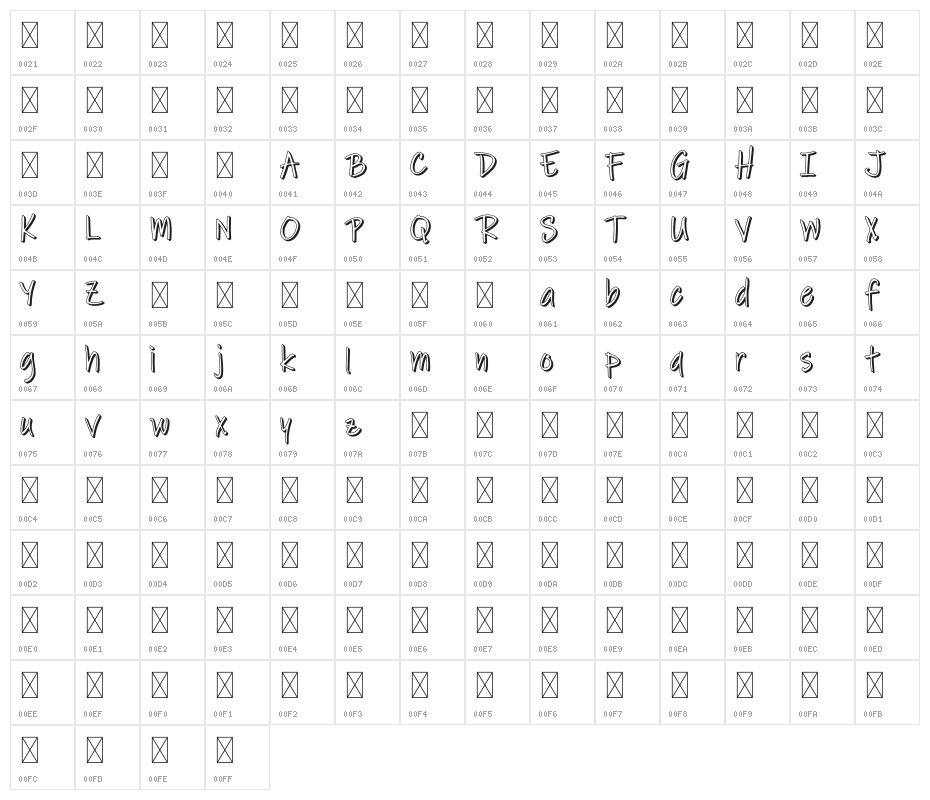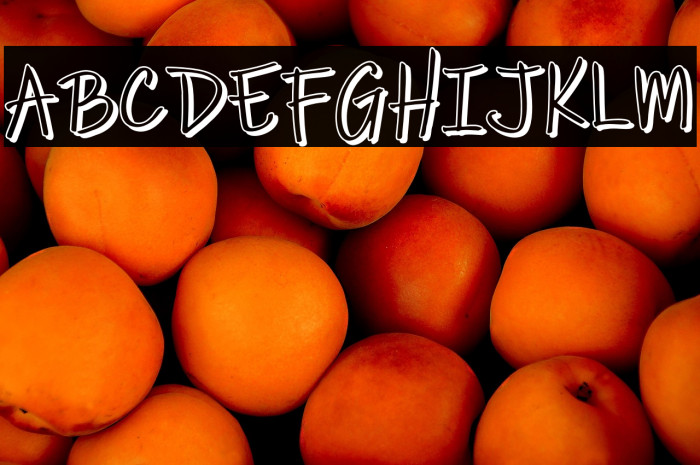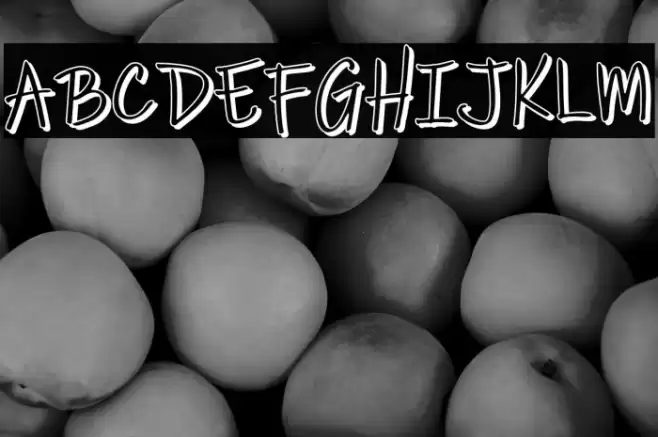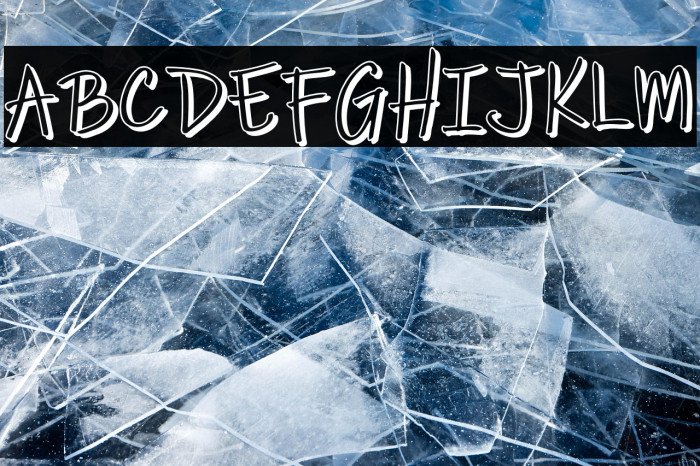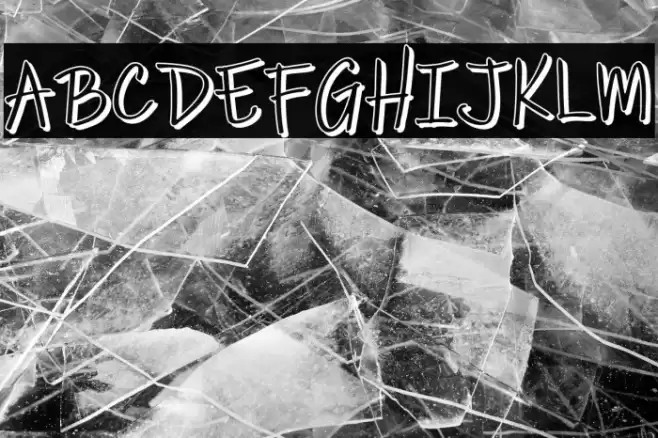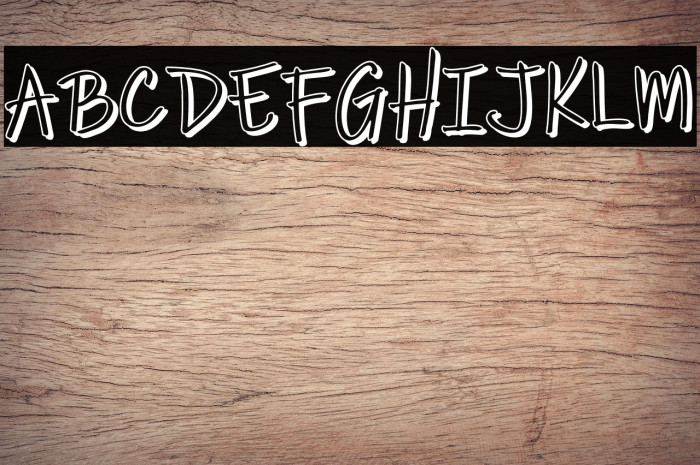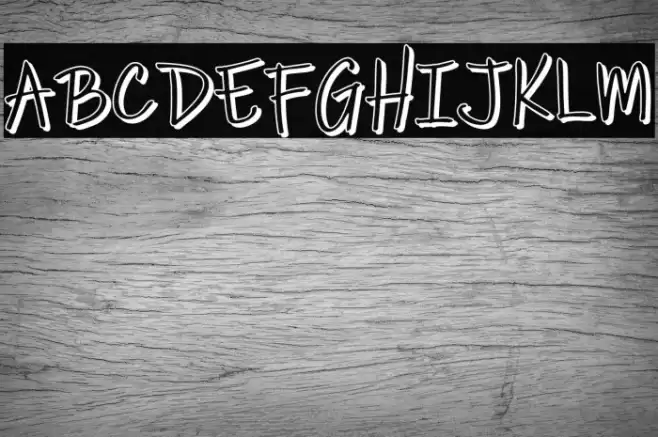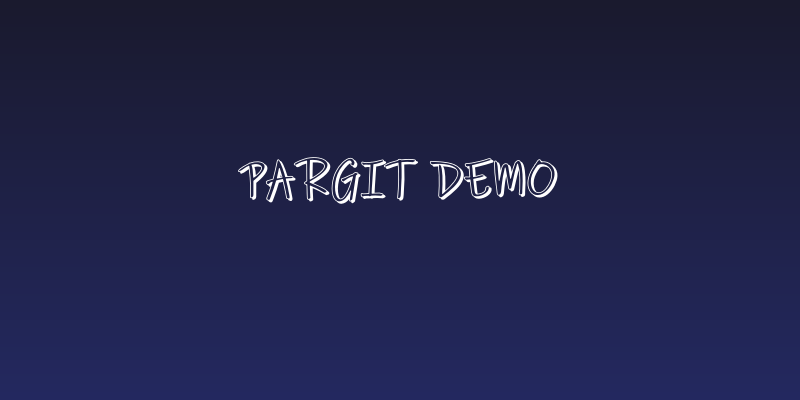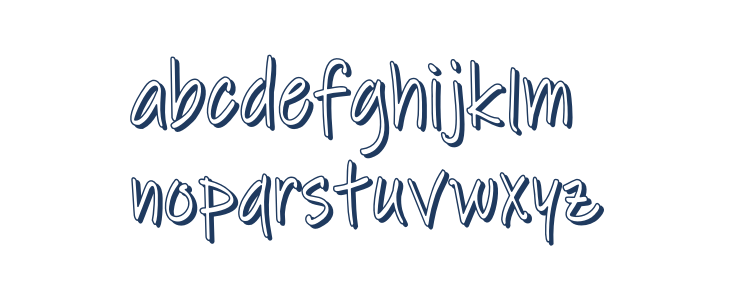
Pargit Demo Font
Pargit Demo Description
This font features a playful and casual handwritten style, characterized by its bold and slightly irregular strokes. The uppercase and lowercase letters exhibit a consistent flow, with rounded edges and a slight slant that adds to its informal appearance. The characters are well-spaced, ensuring readability while maintaining a lively and energetic feel. The font's unique personality makes it stand out, making it suitable for creative and informal projects. Its boldness is evident, providing a strong visual impact without compromising on legibility.
| Proposed Projects | Ideal for greeting cards, children's books, playful branding, and social media graphics. |